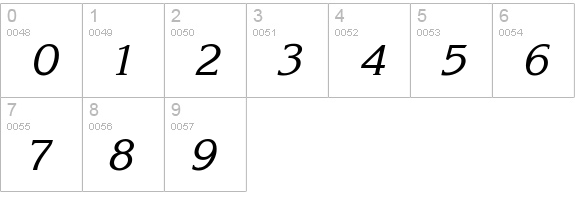
Korinthia Italic Font Details
Korinthia Italic is a distinctive, italic variant in the Korinthia typeface family \xE2\x80\x94 well suited to design and typography projects.
Introducing the exquisite Korinthia Italic font, a stunning typeface that exudes elegance and sophistication. Designed with precision and style in mind, Korinthia Italic boasts sleek lines and graceful curves that add a touch of refinement to any design project. This versatile font is perfect for creating eye-catching logos, branding materials, invitations, and more. What sets Korinthia Italic apart is not only its timeless beauty but also its accessibility. This premium font is available for free download exclusively at FontsMarket.com, allowing designers and creatives to elevate their work without breaking the bank. Whether you're working on a personal project or a professional assignment, Korinthia Italic is sure to impress with its effortless charm and versatility. Download this exceptional font today and unlock a world of design possibilities at your fingertips.